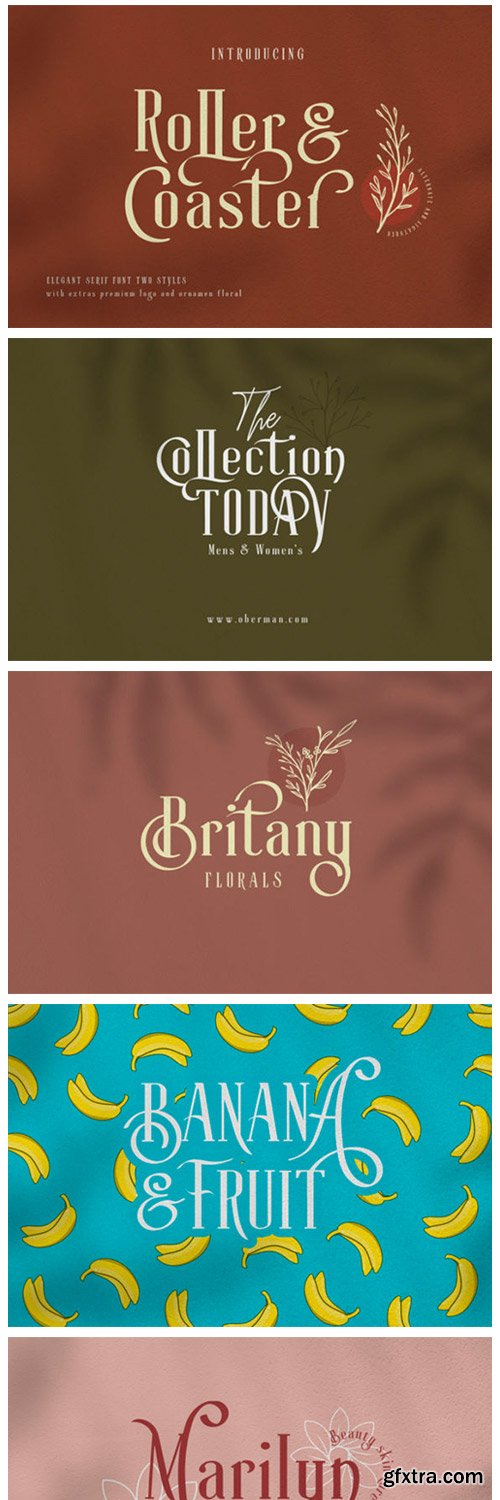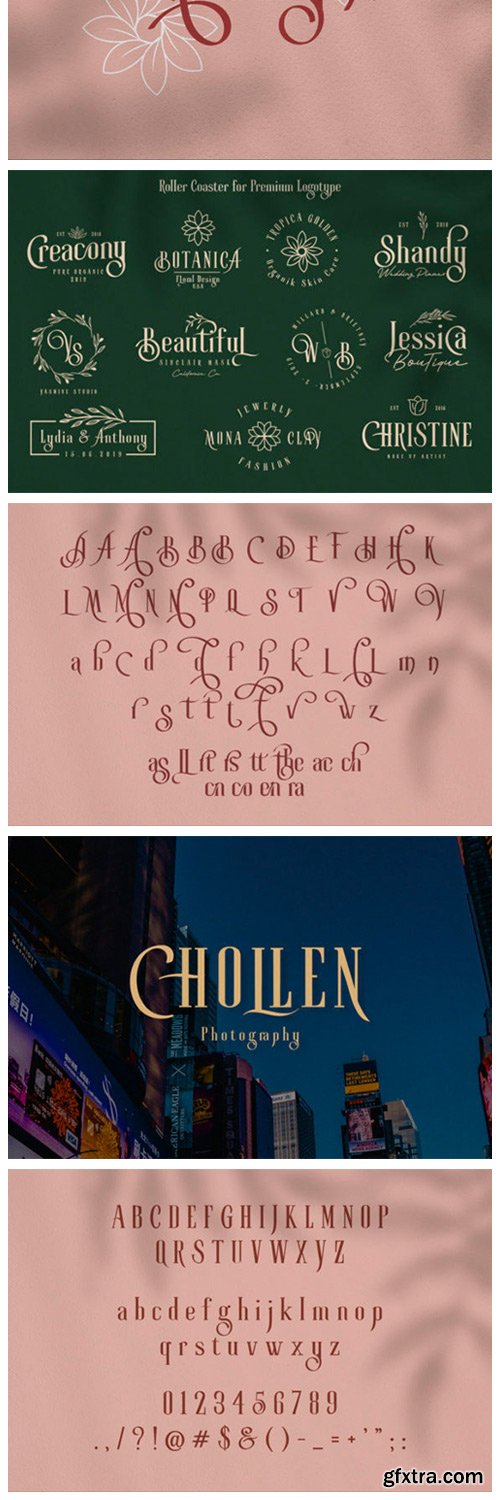
Roller Coaster Font
Roller Coaster is a decorative, vintage, antique and elegant serif font. It’s beautiful and round shapes make it easy to remember!